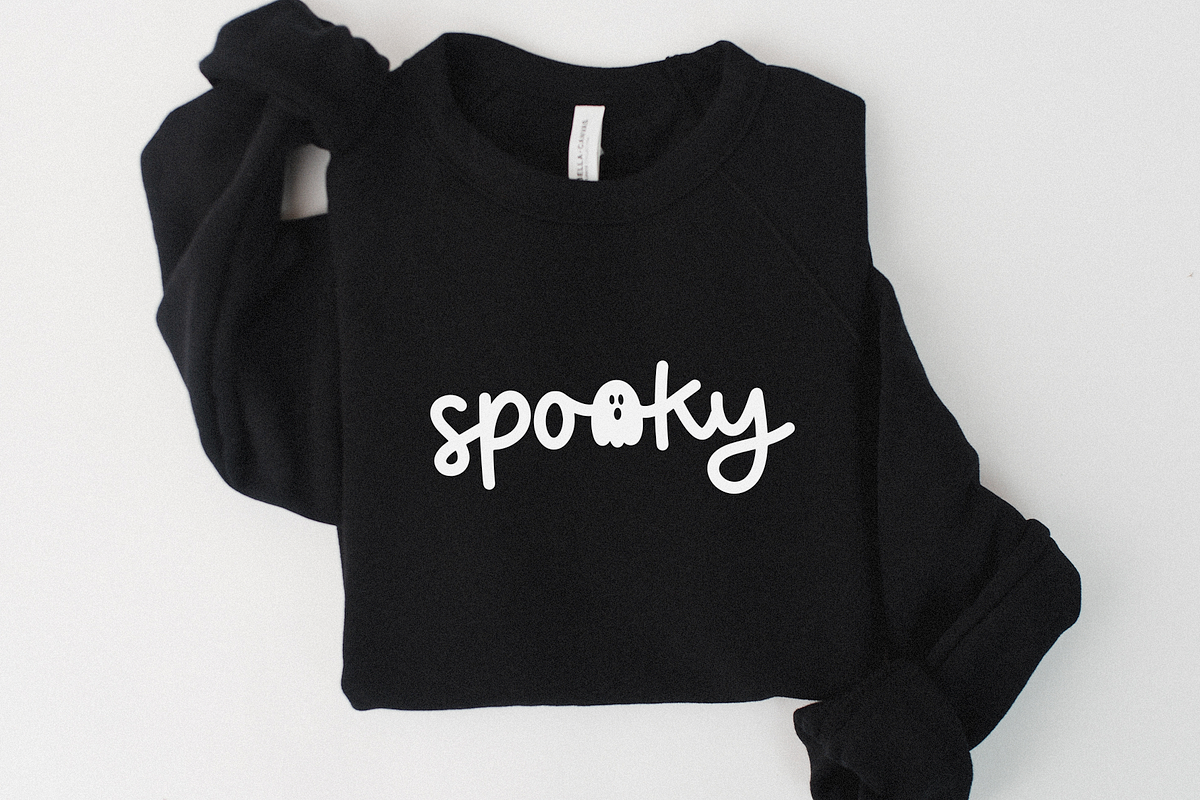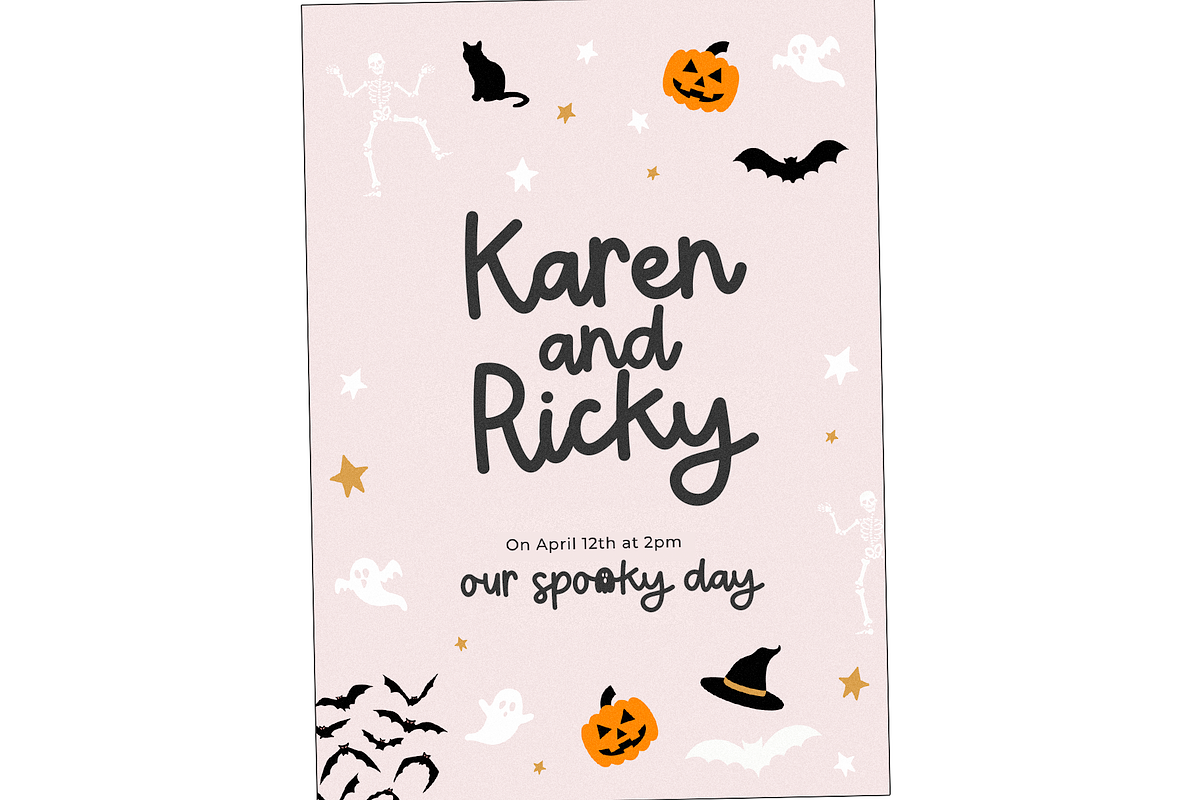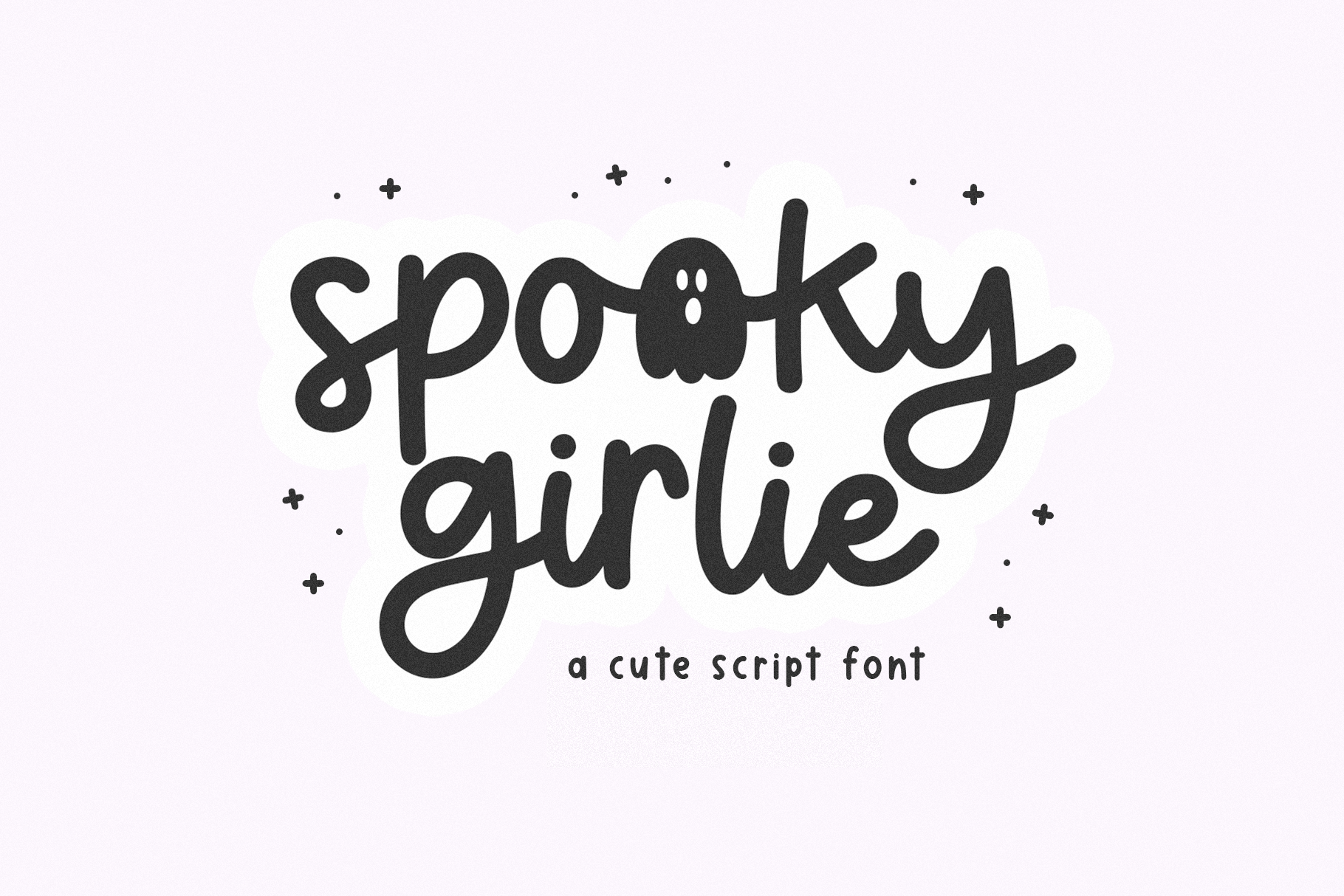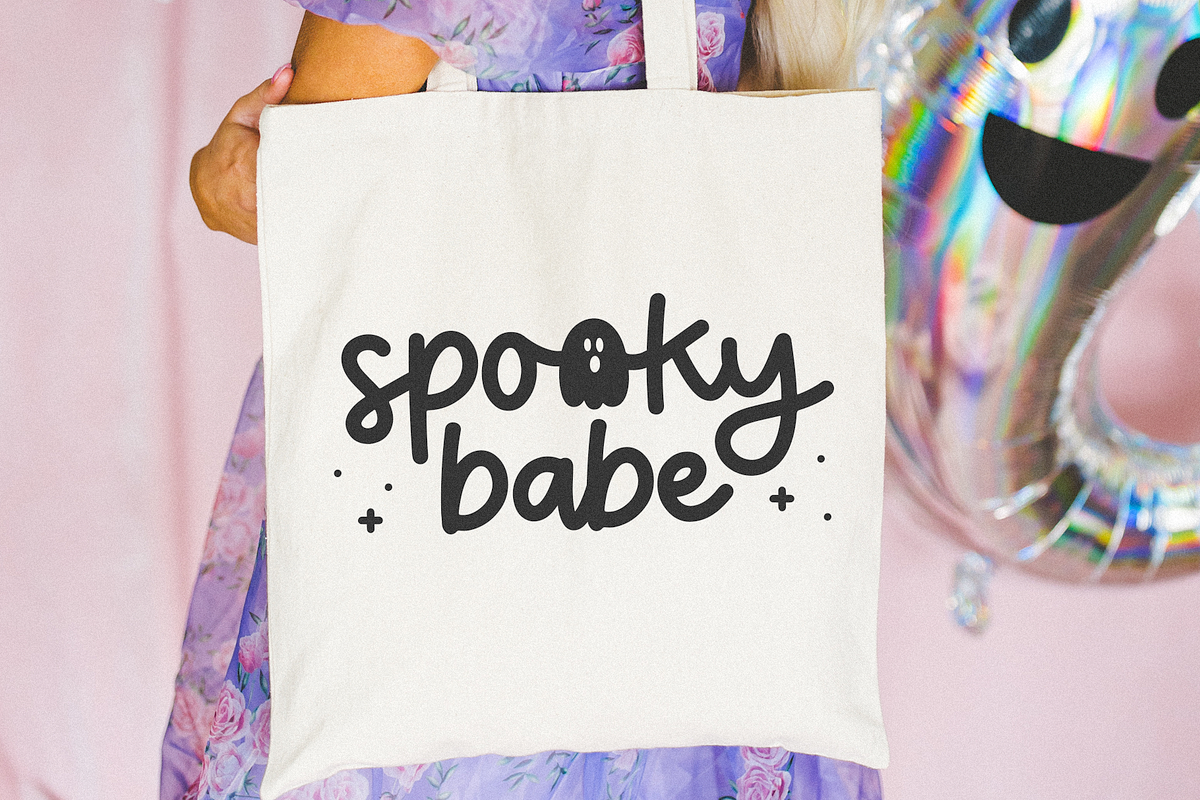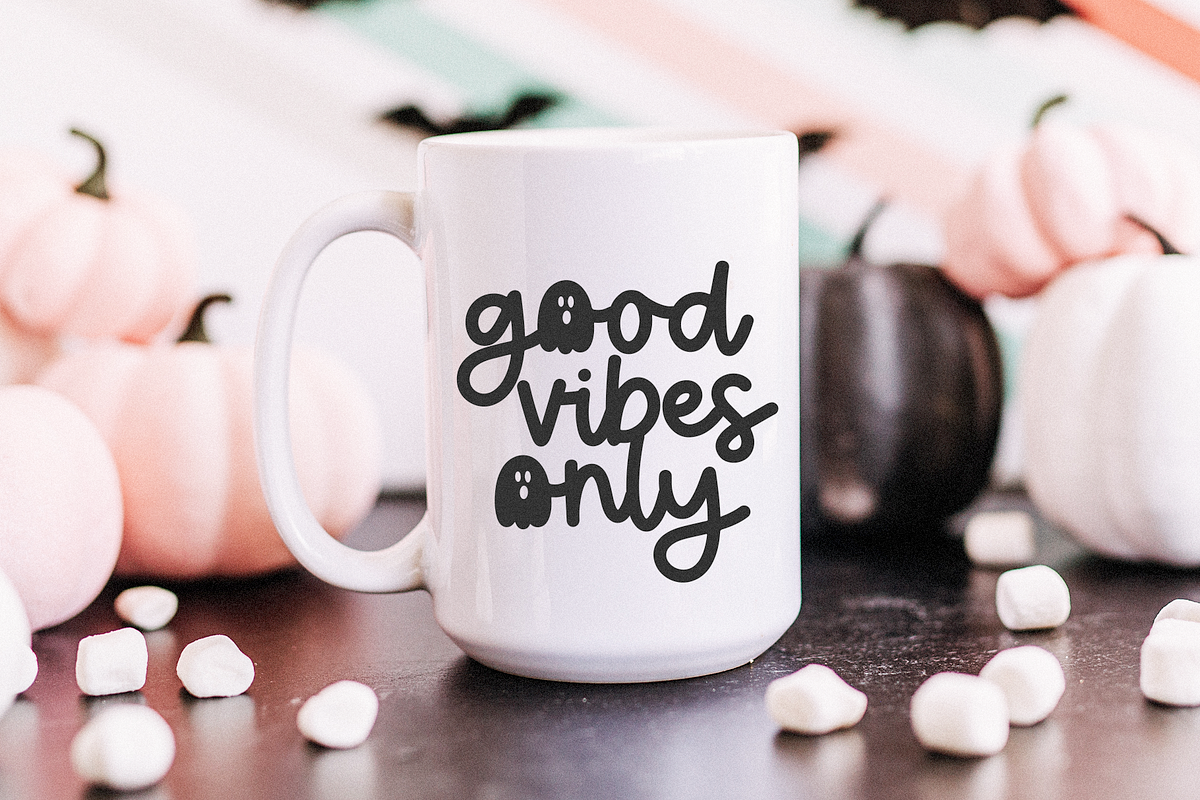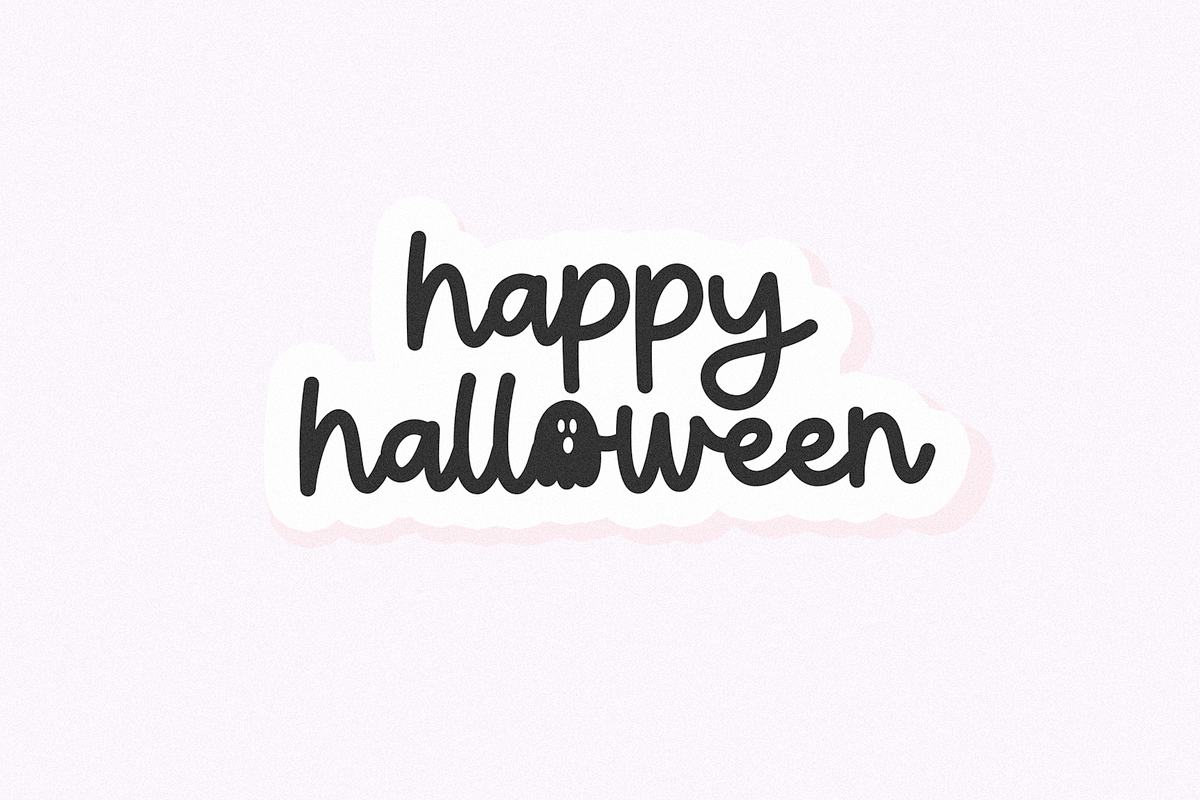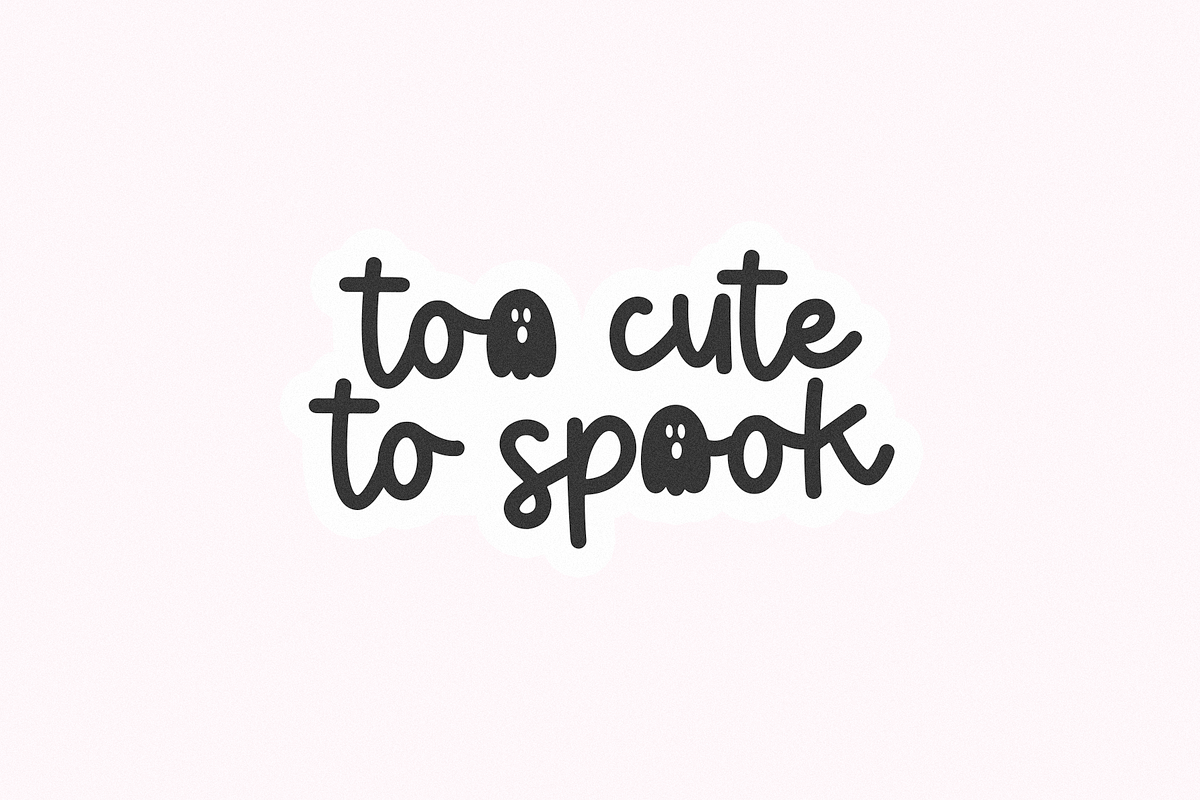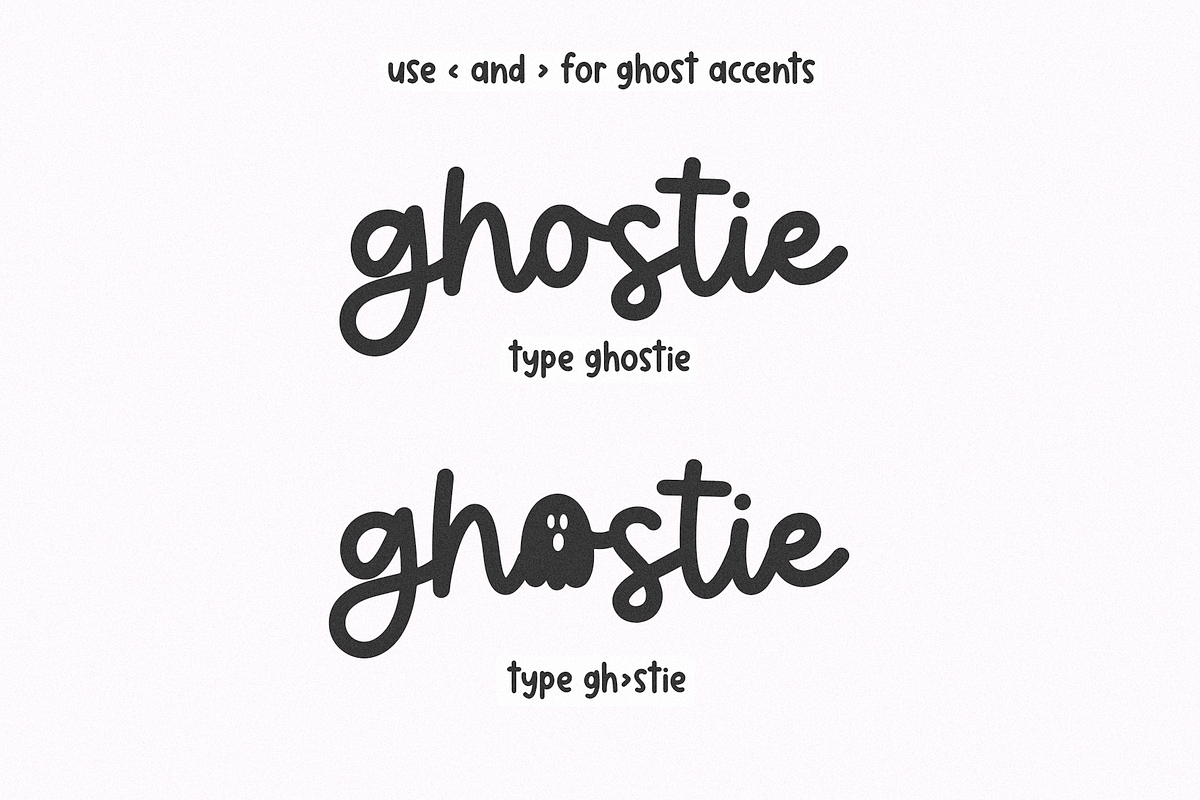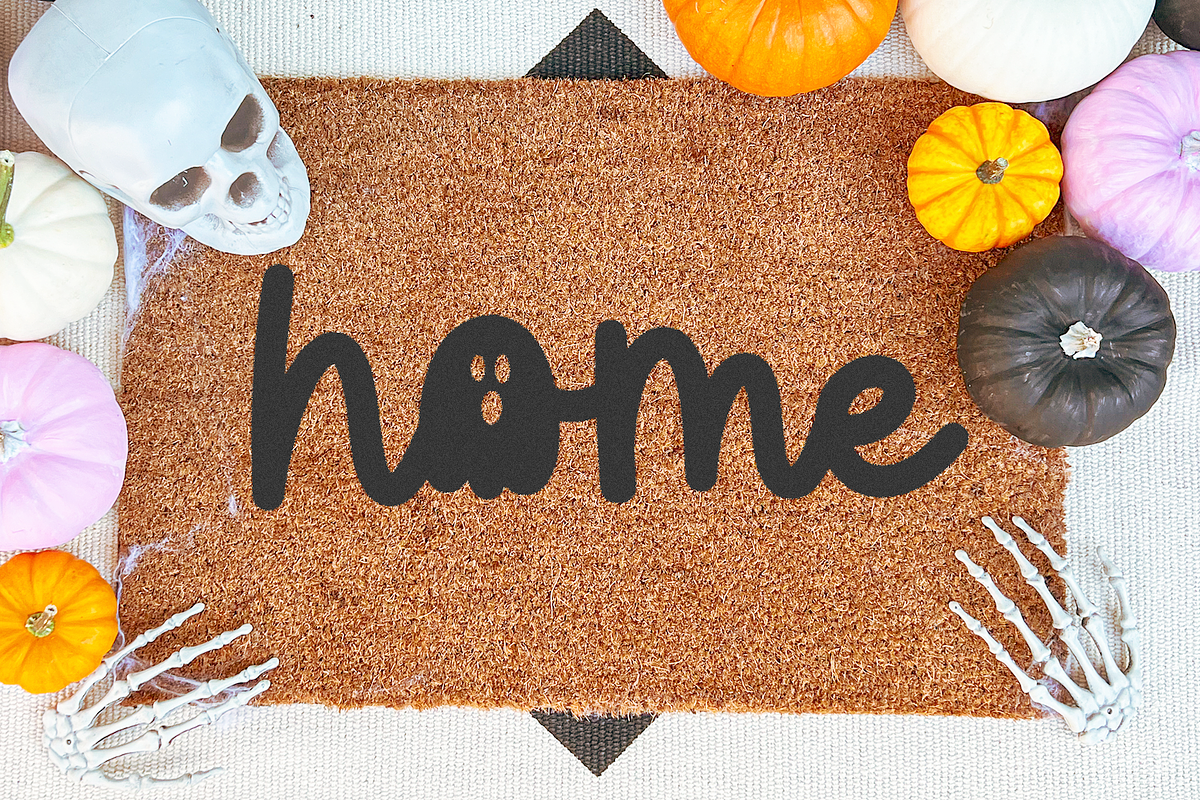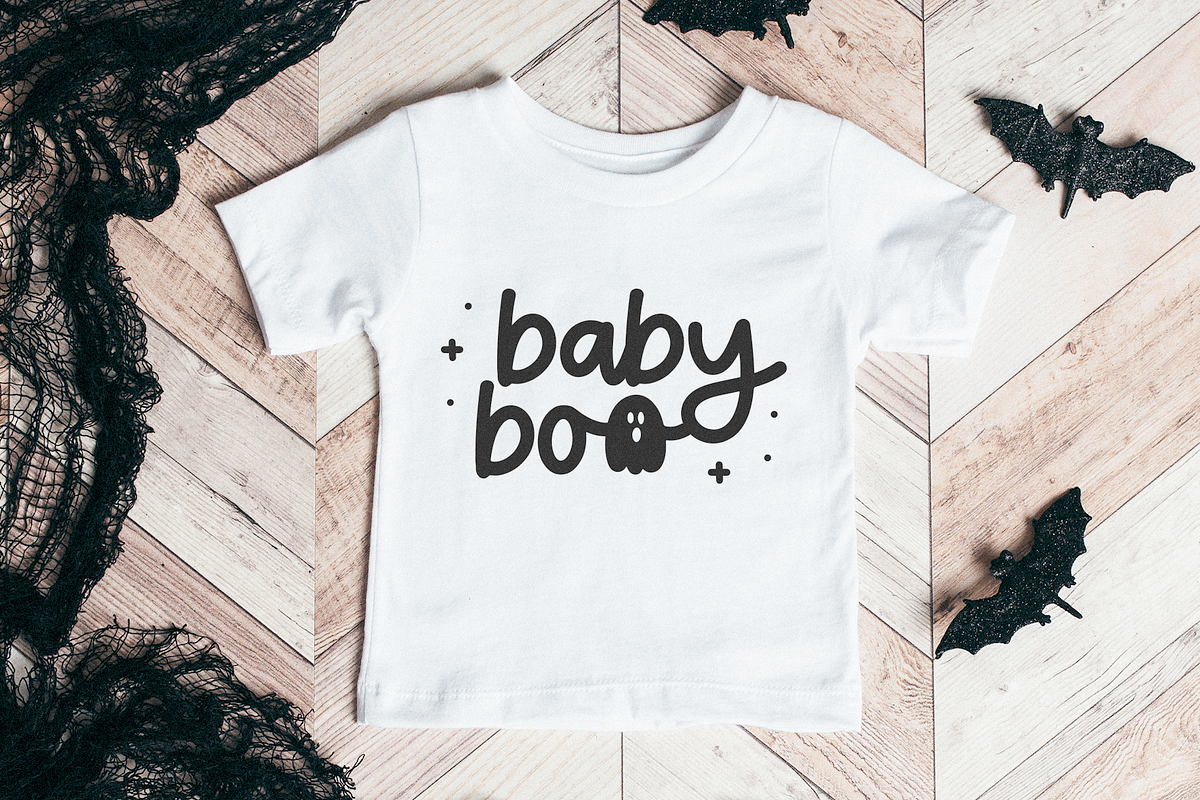
Spooky Girlie | Halloween Font
Spooky Girlie is a cute script font perfect for your Halloween designs!
Use this font for your cricut projects, svg files, logos, shirts, stickers, social media quotes, mugs, Halloween invitations and more!